Angle
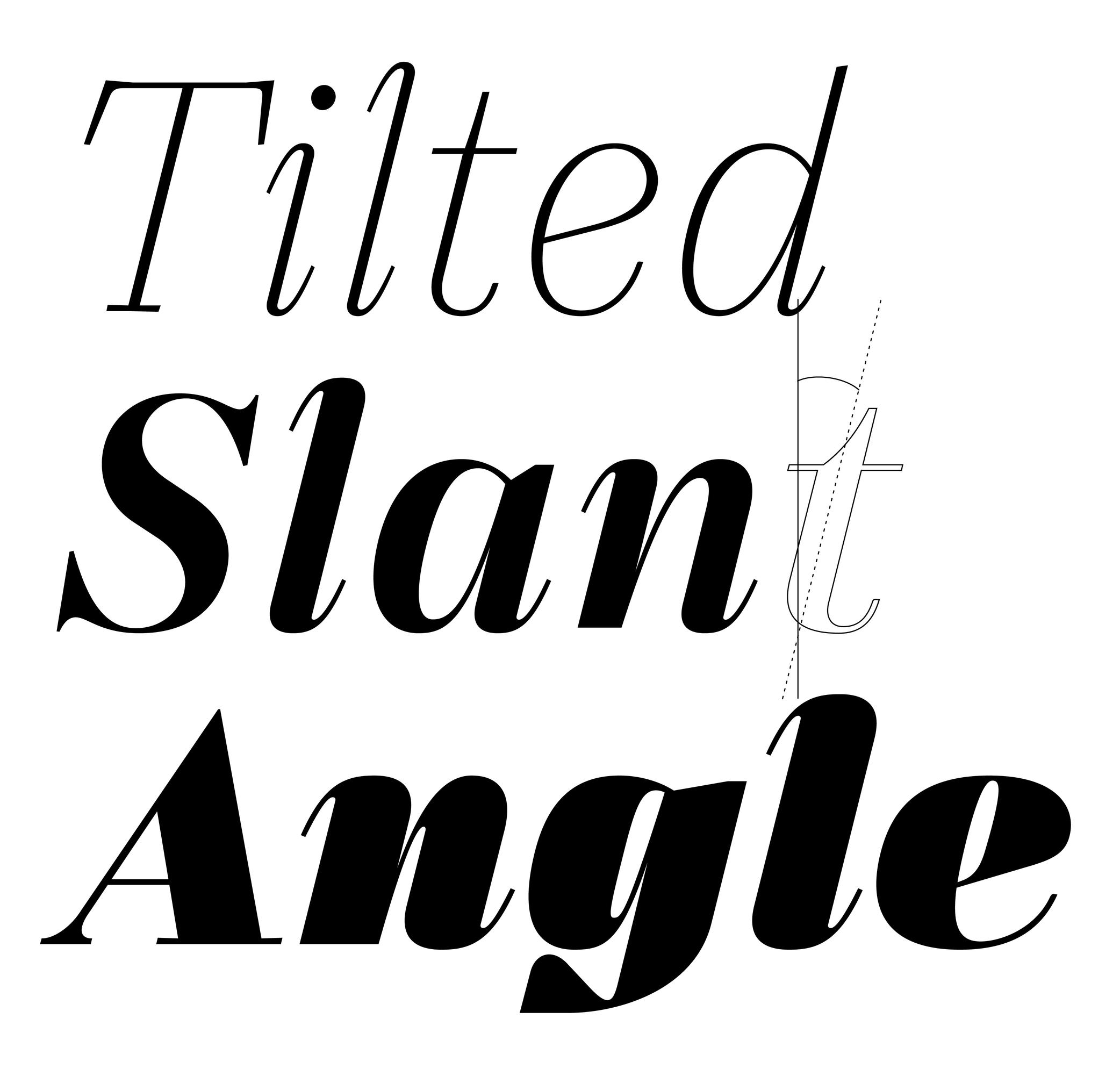
Also called slant.
The angle is what we can observe on italic-style letterforms. We say the vertical stems are stretched and leaning to the right at a certain angle.
In the same typeface family, the degree of the italic angle may vary from one weight to another, different sizes of use (display to caption styles), different scripts, or even from one glyph to another in the same style to optically improve the typeface’s balance.